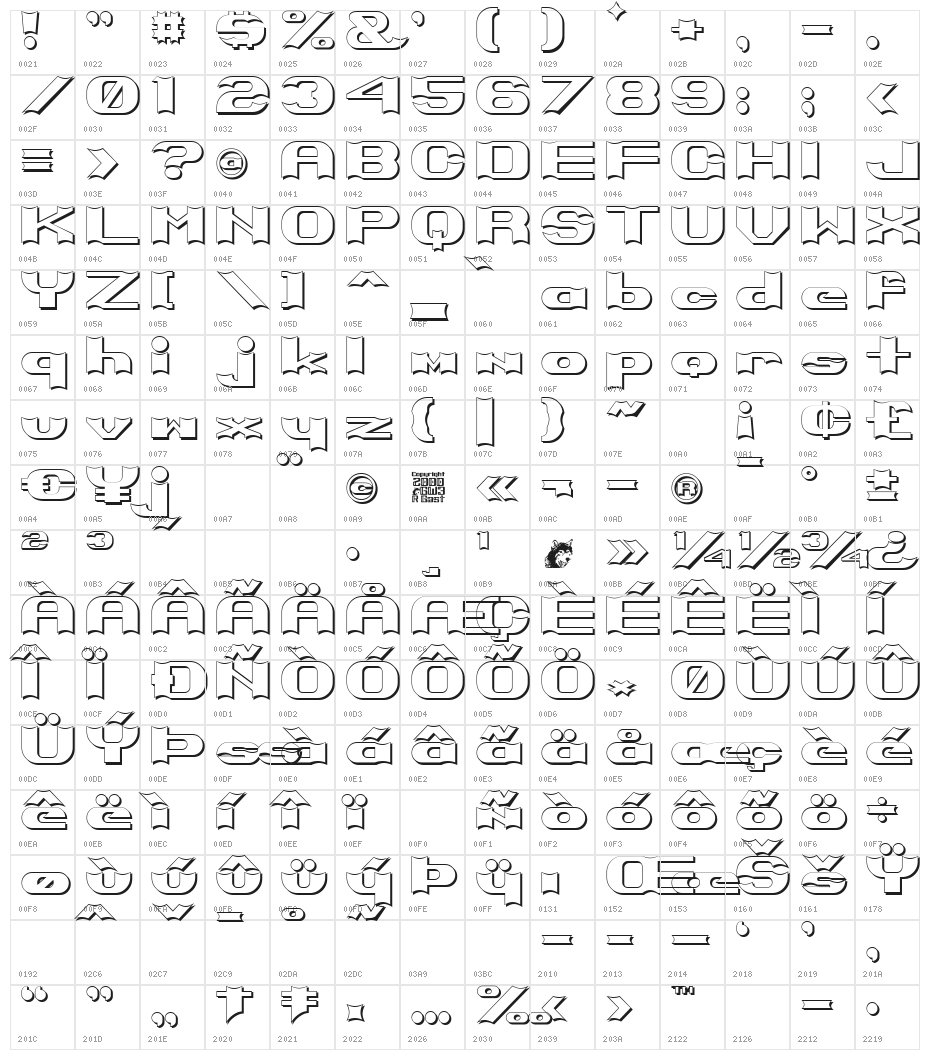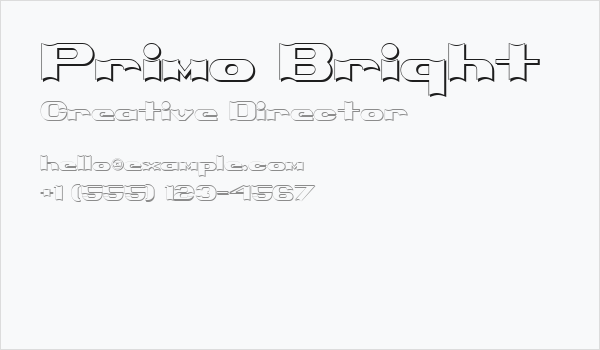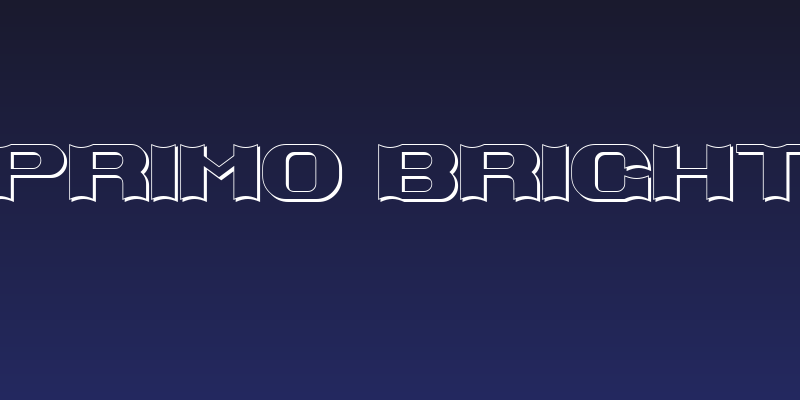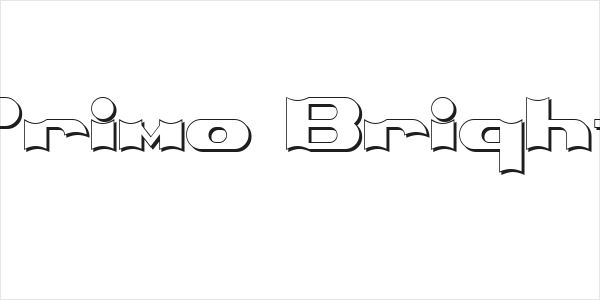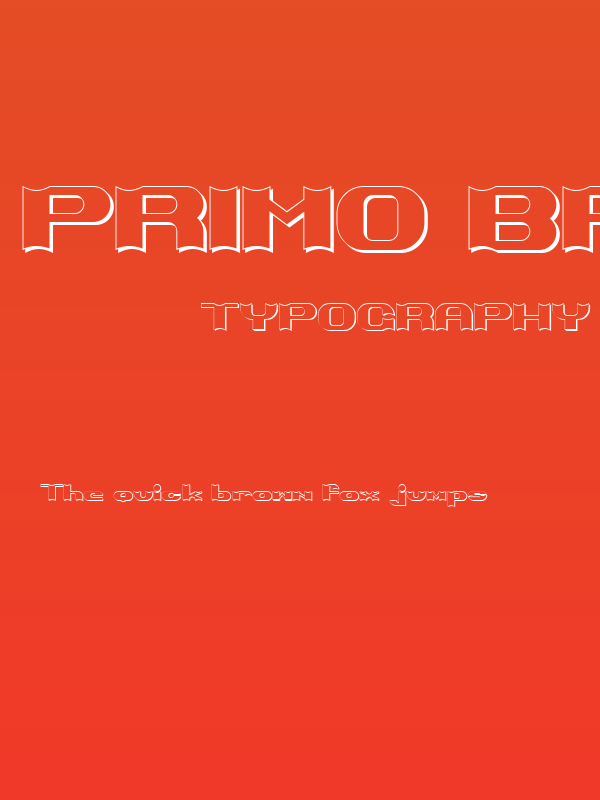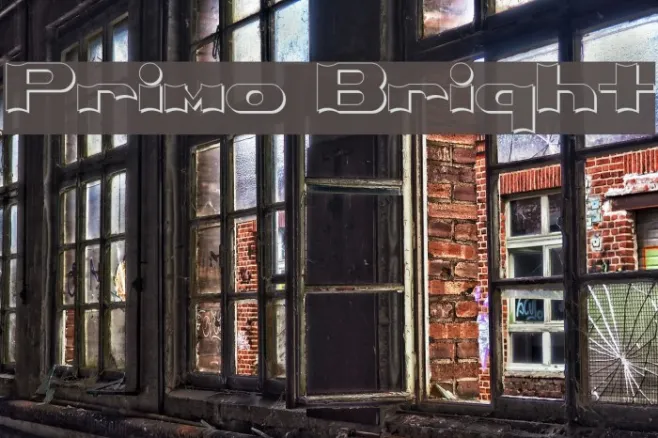
Primo Bright Font
Primo Bright Description
This font features a bold and striking design with a three-dimensional effect, giving each character a sense of depth and shadow. The uppercase and lowercase letters are crafted with sharp, angular edges and a geometric style, creating a futuristic and modern appearance. The numbers and special characters maintain this bold, structured look, ensuring consistency across all glyphs. The font's unique style makes it stand out, ideal for projects that require a strong visual impact.
| Proposed Projects | Ideal for logos, posters, video game graphics, and any project needing a futuristic or impactful design. |